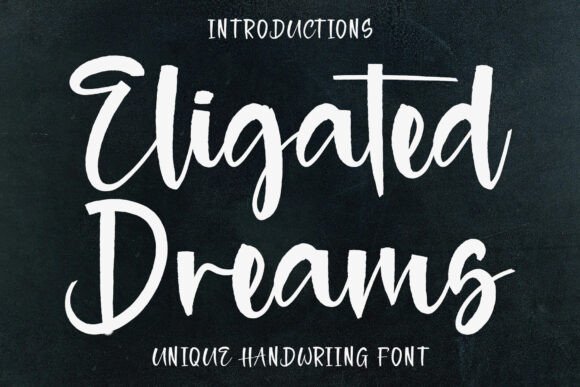
Introducing Eligated Dreams Font: Elevate Your Designs with Elegance
In the realm of digital design, fonts play a pivotal role in conveying messages, evoking emotions, and adding a touch of personality to creative projects. Among the myriad of fonts available, Eligated Dreams stands out as a beacon of elegance and sophistication. This magical handwritten font is meticulously crafted to infuse a sense of luxury and refinement into your designs, making it an ideal choice for a wide array of creative endeavors.
The Essence of Eligated Dreams Font
Eligated Dreams is not just a font; it’s an experience. It’s designed to transform your creative ideas into true pieces of art, whether you’re working on a DIY project, crafting a compelling Instagram post, or developing a comprehensive brand identity. The essence of Eligated Dreams lies in its ability to blend elegance with versatility, making it suitable for various design needs.
Characteristics of Eligated Dreams
Handwritten with Love
Eligated Dreams boasts a handwritten quality that adds a personal touch to any design. Its strokes are fluid, and its letters are carefully crafted to mimic the elegance of calligraphy, making it perfect for projects that demand a human touch.
Elegance Redefined
The font’s design is centered around bringing an air of sophistication to your creations. Its elegant curves and refined lines ensure that your designs stand out with a classy appeal, ideal for luxury brands, high-end products, or any project aiming to convey a sense of premium quality.
Versatility at Its Best
One of the key features of Eligated Dreams is its versatility. This font can seamlessly fit into various design contexts, from digital media like Instagram and Facebook posts to print materials such as brochures, posters, and business cards. Its adaptability makes it a valuable asset for designers looking for a font that can cater to diverse project requirements.
Applications of Eligated Dreams Font
Social Media Graphics
In the age of visual storytelling, social media platforms like Instagram and Pinterest have become essential channels for designers to showcase their work. Eligated Dreams font can elevate your social media graphics, making your posts stand out amidst the crowded digital landscape. Its aesthetic appeal can help increase engagement and make your content more memorable.
DIY Projects
For those who enjoy the personal satisfaction of creating something with their own hands, Eligated Dreams can add a professional touch to DIY projects. Whether you’re making greeting cards, crafting custom banners, or designing personalized gifts, this font can help you achieve a polished look without extensive design experience.
Branding and Marketing Materials
Businesses looking to create a strong brand identity can benefit greatly from Eligated Dreams. The font’s elegance and sophistication make it suitable for logos, packaging, and marketing materials. It can help brands communicate their values of luxury, quality, and attention to detail.
Why Choose Eligated Dreams?
Unique and Memorable
In a world where generic fonts are common, Eligated Dreams offers a unique alternative. Its distinctive style ensures that your designs are memorable and can leave a lasting impression on your audience.
Easy to Read and Aesthetic
Despite its elegant and cursive nature, Eligated Dreams maintains readability, making it a practical choice for body text as well as headlines. Its aesthetic appeal doesn’t compromise on functionality, ensuring that your designs are both beautiful and effective in communication.
Constantly Updated
The creators of Eligated Dreams are committed to its continuous improvement. Regular updates mean that users can look forward to new features, characters, and improvements, ensuring that the font remains relevant and useful for a wide range of projects.
How to Make the Most of Eligated Dreams
Experiment with Colors and Textures
To truly leverage the potential of Eligated Dreams, don’t be afraid to experiment with different colors and textures. The font’s elegance can be further accentuated by thoughtful color choices and backgrounds, adding depth and interest to your designs.
Pair it Wisely
While Eligated Dreams is stunning on its own, pairing it with complementary fonts can create visually appealing contrasts. Consider combining it with sans serif fonts for a modern look or with other script fonts for a more traditional aesthetic.
Use it Consistently
For branding purposes, consistency is key. Using Eligated Dreams across all your marketing materials and brand assets can help create a cohesive and recognizable brand identity.
Eligated Dreams is more than just a font; it’s a tool that can transform your creative visions into tangible pieces of art. Its elegance, versatility, and unique charm make it an invaluable resource for designers and creatives looking to add a touch of sophistication to their work. Whether you’re crafting social media posts, working on DIY projects, or developing a brand identity, Eligated Dreams can help elevate your designs to new heights of elegance and beauty.
Q: Can I use Eligated Dreams for my Instagram posts?
A: Absolutely! Eligated Dreams is perfect for creating visually appealing Instagram posts and stories.
Q: How can I get the most out of Eligated Dreams?
A: Experiment with different colors, pair it with complementary fonts, and use it consistently across your designs to maximize its impact.